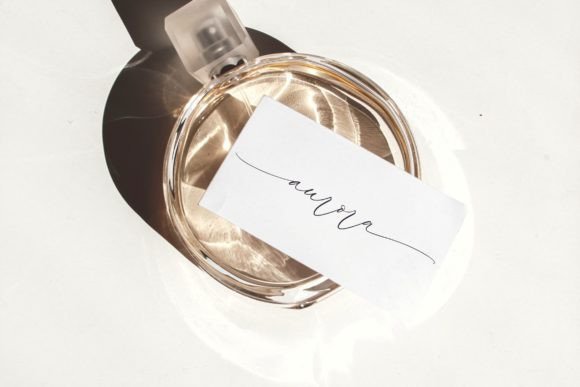
Victora Font
Victora is a handwriting script font perfect for wedding stationery, elegant handwritten logos and branding, websites, social media quotes, and more!
This font is also suitable to be combined with Sans Serif which will make your design perfect. Also already PUA Encoded!